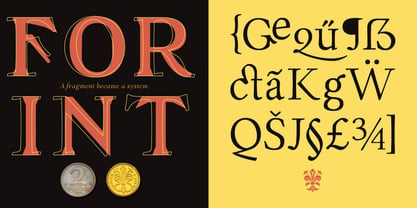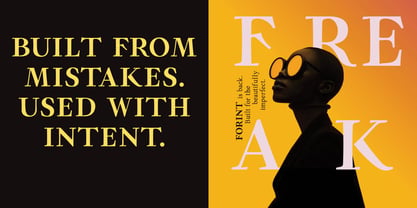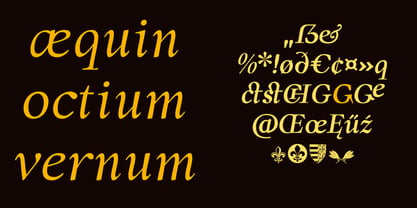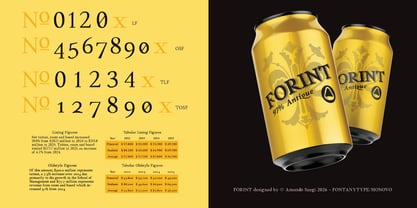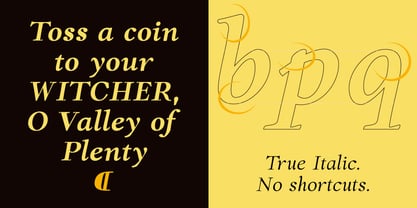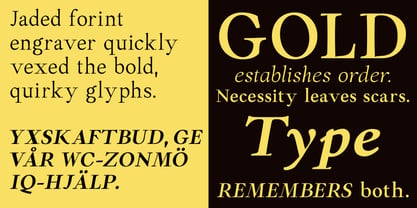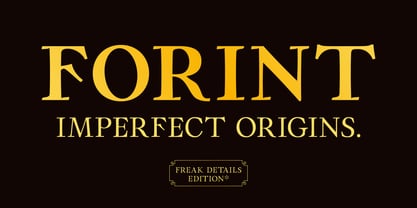
Forint
by Monovo
The Forint Font Family was designed by Amondó Szegi and published by Monovo. Forint contains 14 styles and family package options. More about this family
Forint – Contemporary Serif with Deliberate Imperfections Forint is a versatile Antiqua family available in seven weights, featuring matching Roman and Italic styles. It is designed for editorial work, cultural branding, packaging, and projects where typographic character is as important as technical precision. What began as a small and imperfect source has evolved into a complete typographic system. Forint transforms a historical accident into a contemporary design language, drawing inspiration from two distinct moments in Hungarian monetary history: the refined Renaissance proportions of the 14th-century Aranyforint (Gold Forint) and the crude, pressure-marked engravings of the 1947 Forint coin. The design process commenced with the irregular F O R I N T letterforms found on post-war coinage—characters shaped by urgency, material constraints, and technical limitations rather than typographic ideals. These so-called freak details—uneven strokes, unexpected angles, and physical imperfections—were intentionally left uncorrected. Instead, they became the structural tensions from which the entire family was developed. Subtle Renaissance proportions provide coherence and balance, while carefully retained irregularities introduce visual personality across all weights. This is not revival typography. Forint does not reconstruct historical forms; it expands fragmented sources into a contemporary serif system that feels intentional, usable, and expressive in modern contexts. It is ideal for magazines, book design, visual identities for cultural institutions, high-end packaging, and projects that require a serif with substance and narrative depth. Imperfect origins. Contemporary application.
Designers: Amondó Szegi
Foundry: Monovo